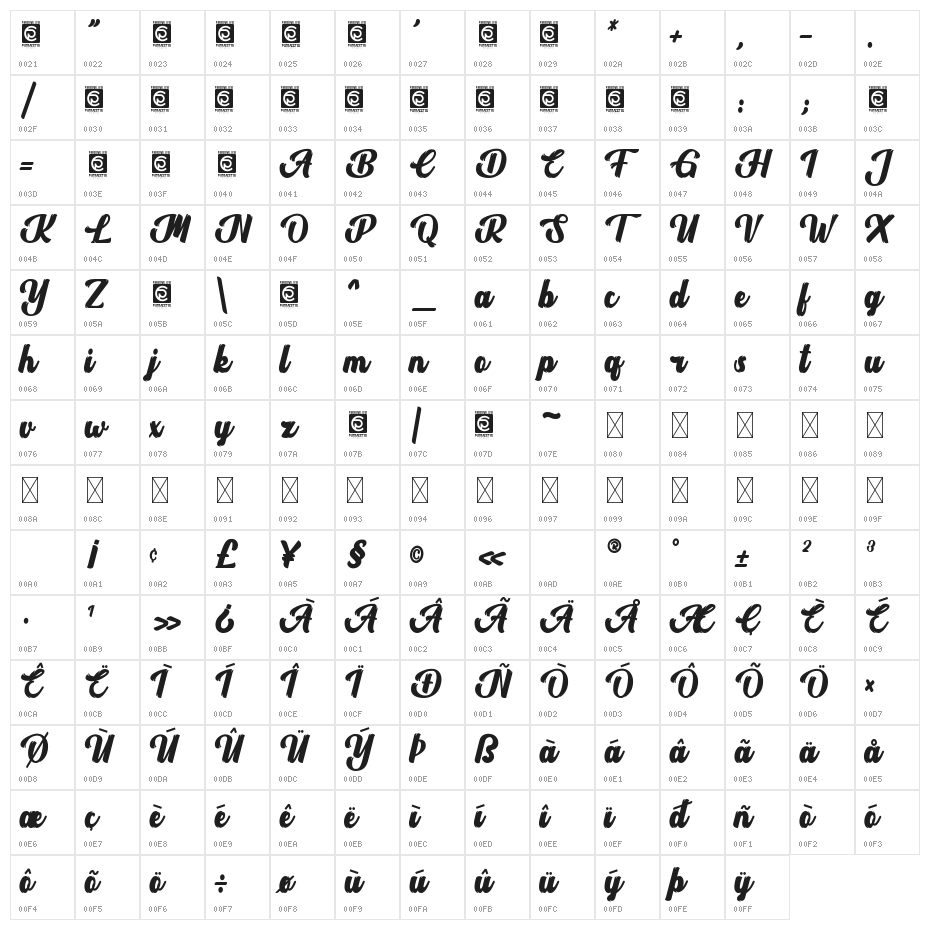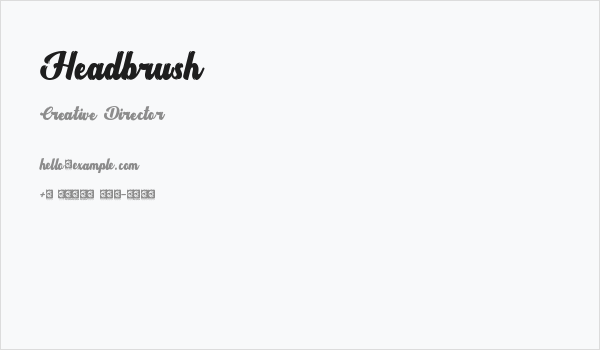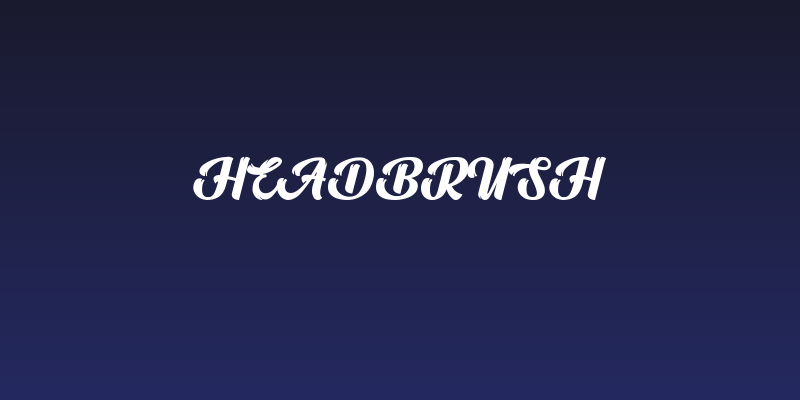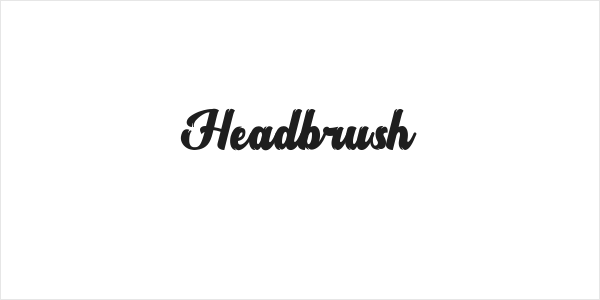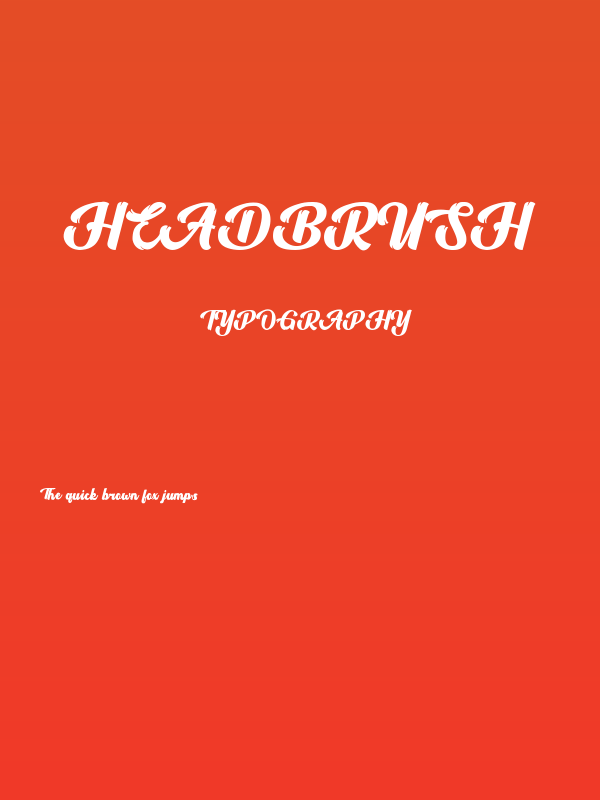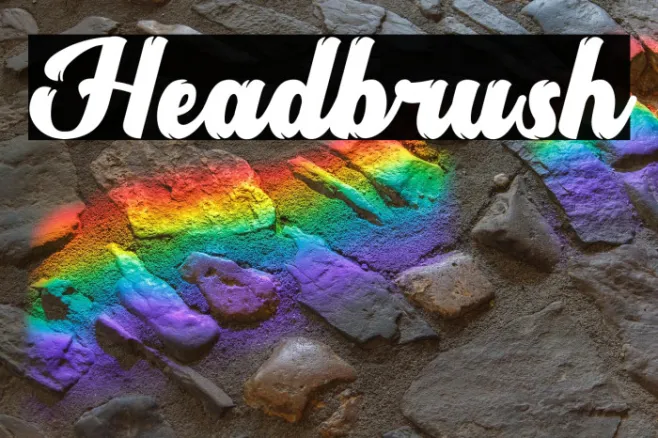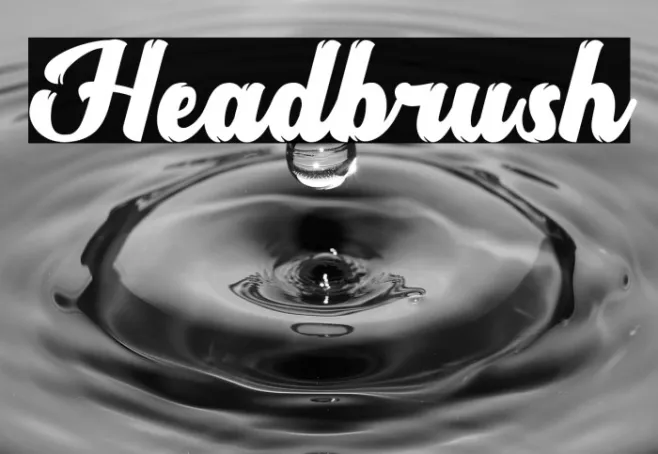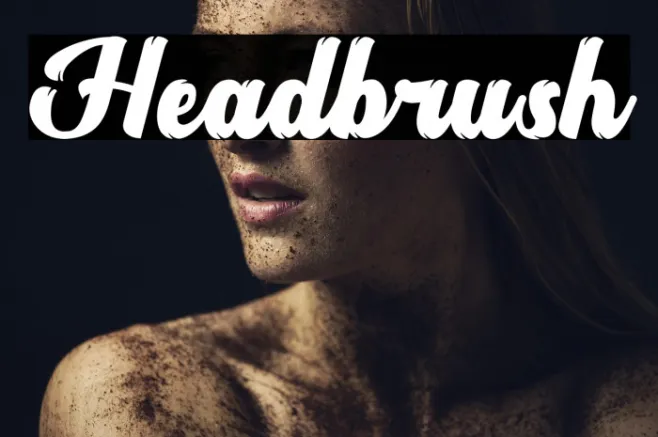
Headbrush Font
Headbrush Description
This font features a bold, brush script style with a dynamic and flowing appearance. The characters are connected, giving it a handwritten feel, reminiscent of calligraphy. The uppercase letters are slightly more formal, while the lowercase letters maintain a casual, artistic vibe. The strokes are thick and consistent, providing a strong visual impact. The special characters, such as punctuation marks, are designed to match the overall aesthetic, ensuring cohesion across all elements. This font is ideal for projects that require a personal touch or a creative flair.
| Proposed Projects | Ideal for branding, logos, invitations, and artistic projects that require a personal touch. |